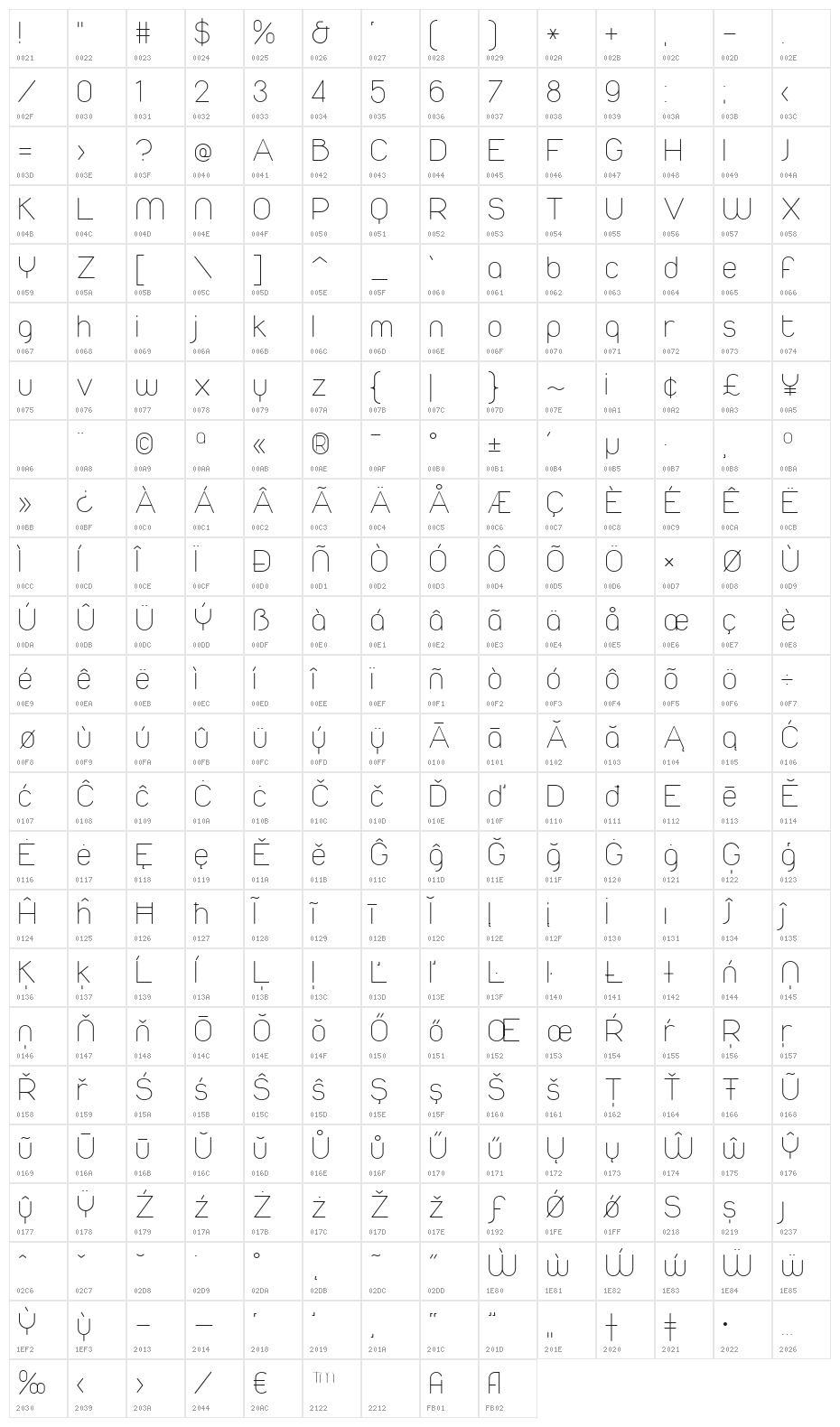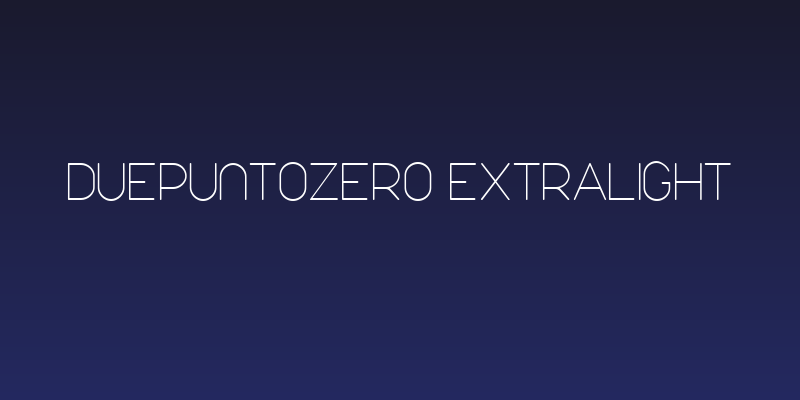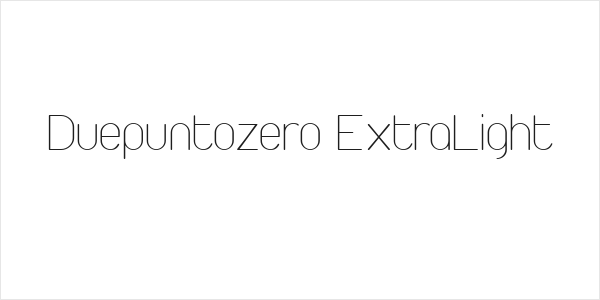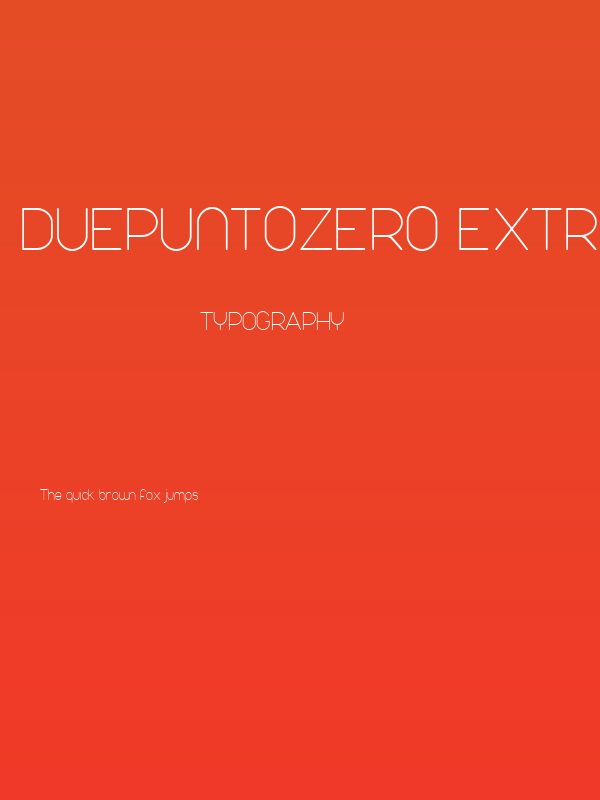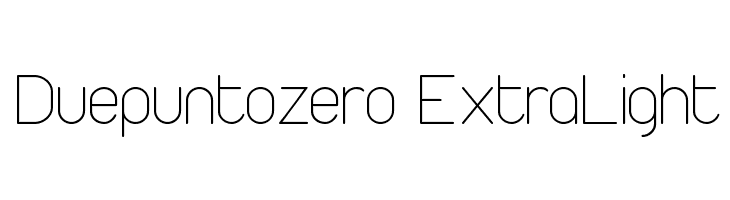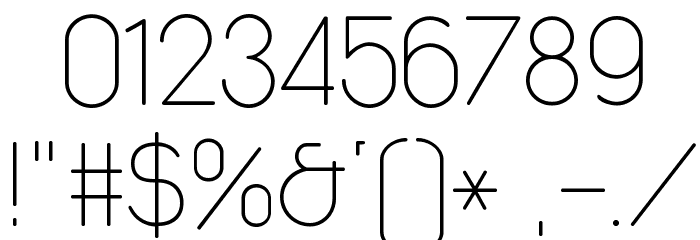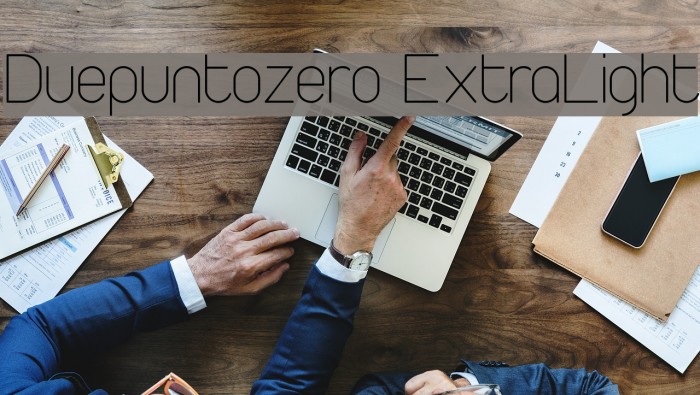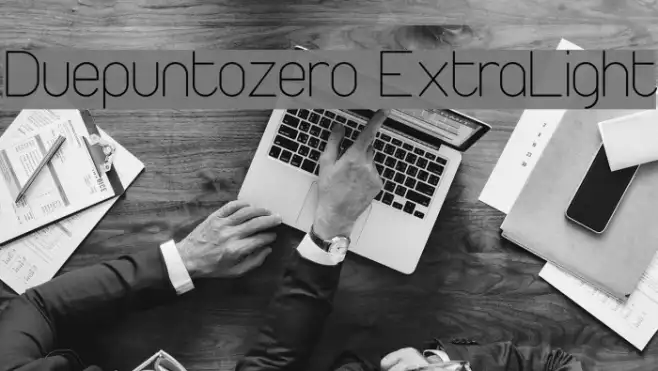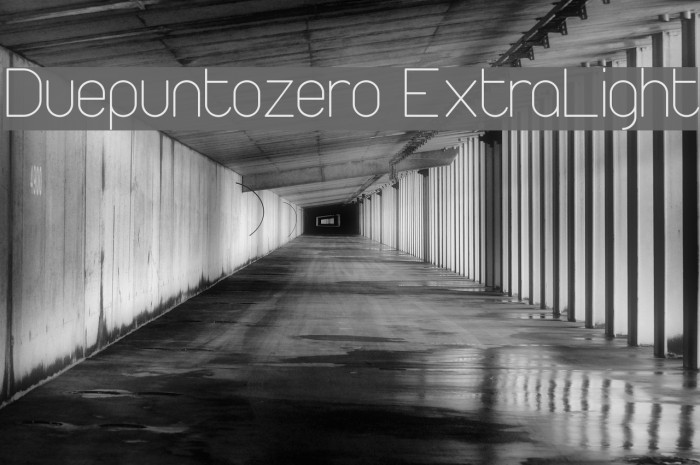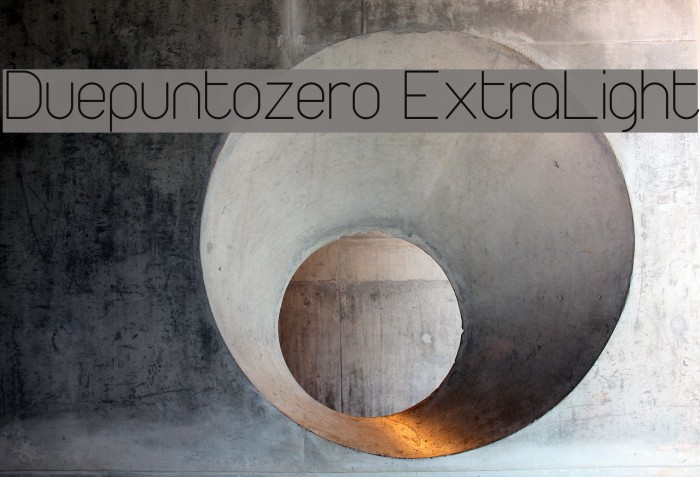
Duepuntozero ExtraLight Font
Duepuntozero ExtraLight Description
This font features a sleek and modern design with an extra-light weight, characterized by its thin, uniform strokes and minimalist aesthetic. The characters are geometric and clean, with a consistent line width that gives it a contemporary and airy feel. The uppercase letters are tall and narrow, while the lowercase letters maintain a similar height, creating a harmonious balance. The numerals and special characters follow the same design principles, ensuring a cohesive look across all glyphs. This font's simplicity and elegance make it suitable for a variety of design applications.